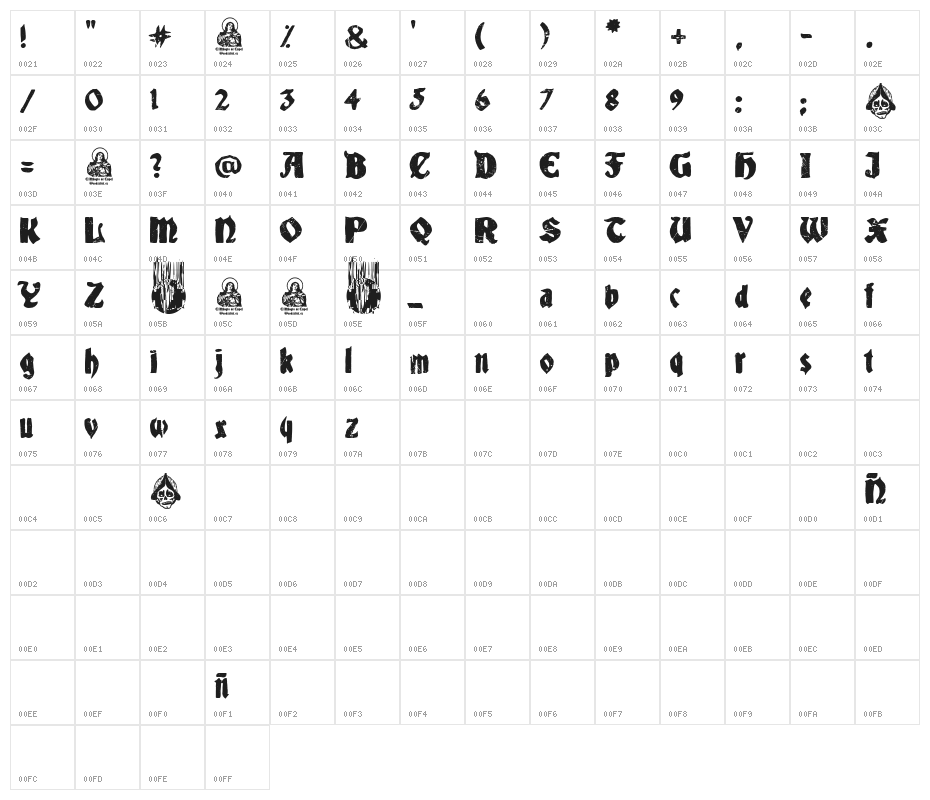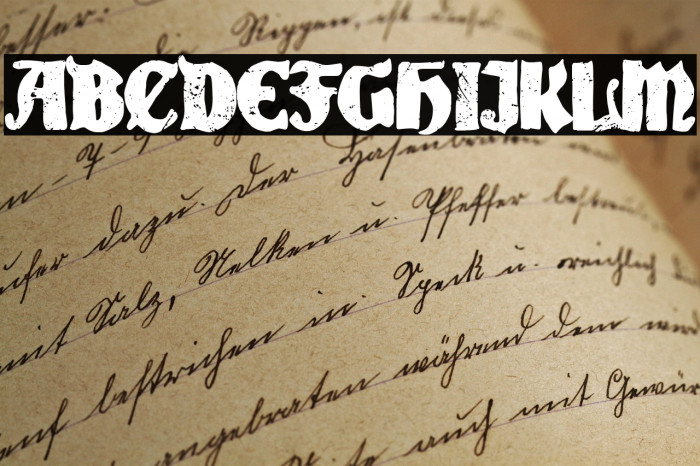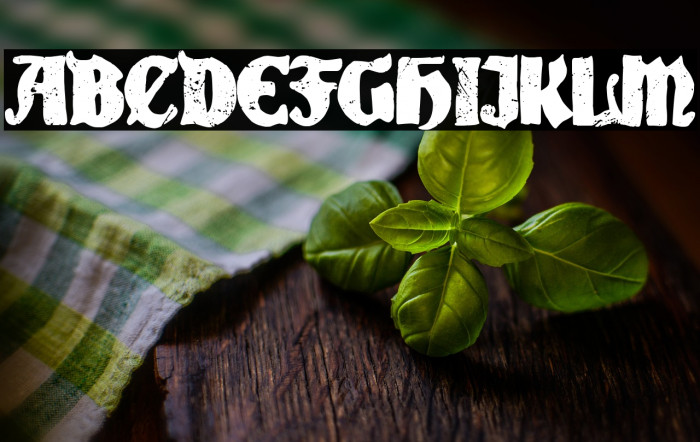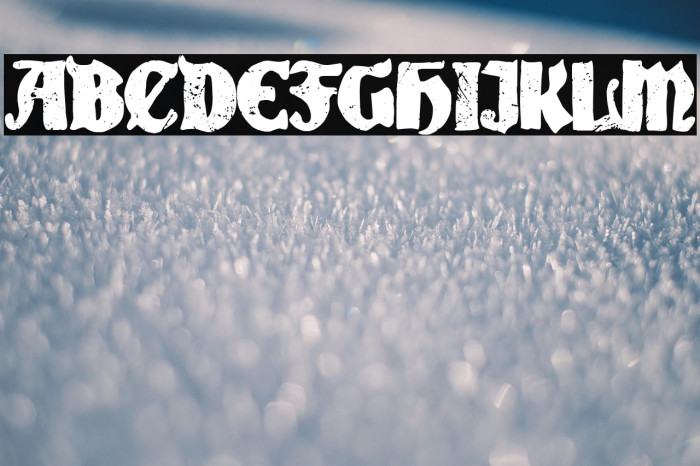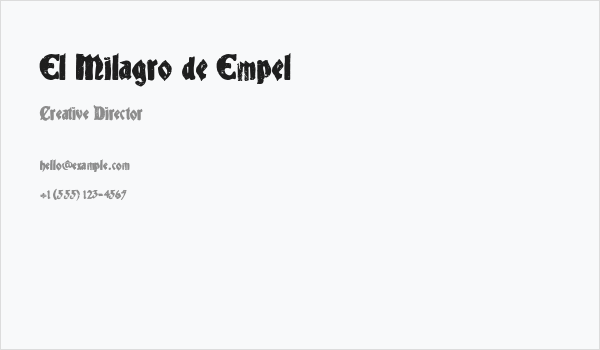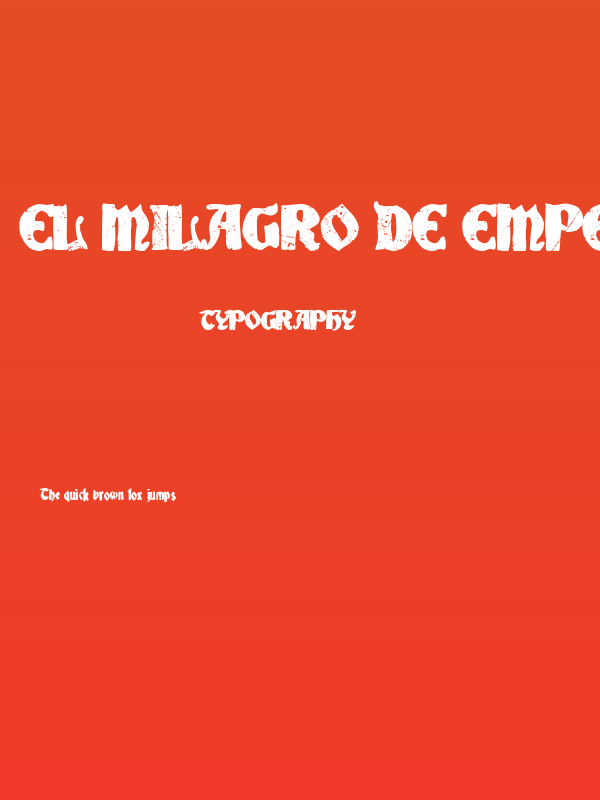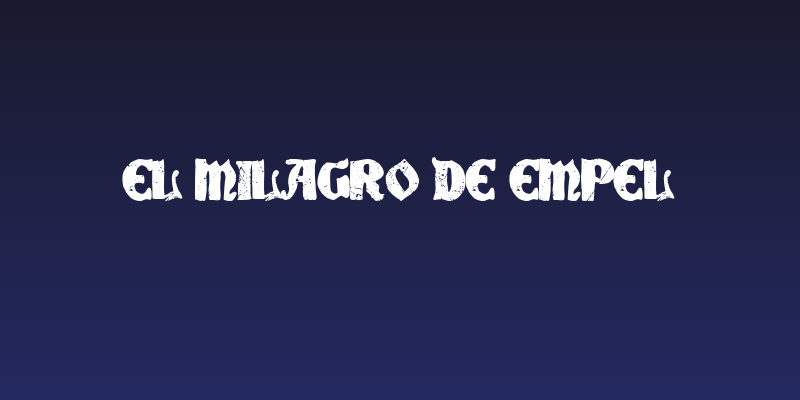
El Milagro de Empel Font
El Milagro de Empel Description
This font features a bold and distressed style, reminiscent of historical or medieval scripts. The characters have a rough, textured appearance, giving them a weathered and vintage feel. The uppercase letters are particularly striking, with sharp angles and a strong presence. The lowercase letters maintain the same rugged aesthetic, ensuring consistency throughout the typeface. Numbers and special characters are also included, each with the same distressed effect, making this font versatile for various design needs. Its unique style is ideal for projects that require a touch of antiquity or a dramatic flair.
| Proposed Projects | Ideal for historical-themed designs, posters, book covers, and branding that requires a vintage or dramatic touch. |